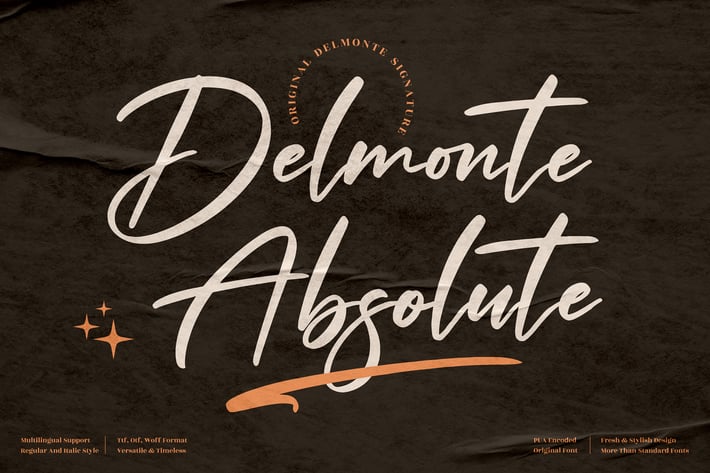
Delmonte Absolute Signature Font
Delmonte Absolute Signature is a stylish handwritten script font designed to bring a touch of modern elegance and authenticity to your projects. Its flowing strokes and natural handwritten style make it perfect for designs that require a personal, classy, yet approachable feel.
+ Signature handwritten style with smooth strokes
+ Regular and italic versions included
+ Multilingual character support
+ Branding & logo design
+ Wedding invitations & stationery
+ Social media graphics
+ Packaging & product design
+ Quotes & posters
+ Fashion and lifestyle projects
Add a modern handwritten touch to your designs with Delmonte Absolute — a font that blends elegance, versatility, and personality.